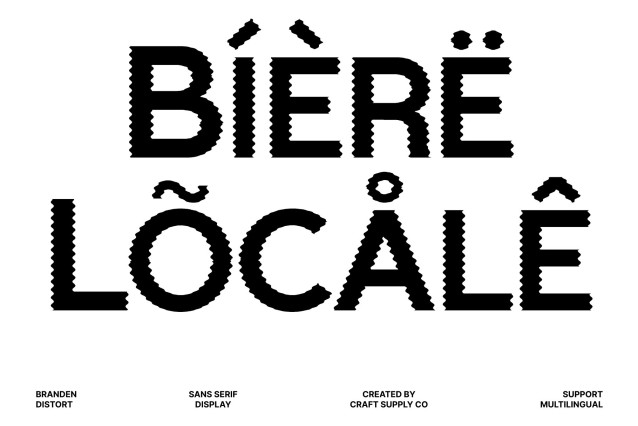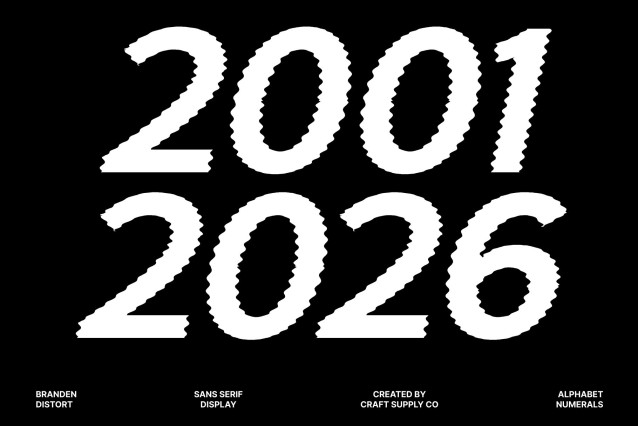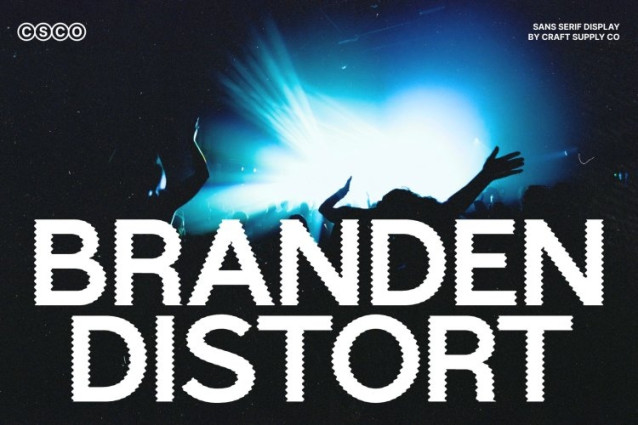
Branden Distort – Casual Sans Serif Font: Friendly Simplicity with an Experimental Melt
Casual Sans Serif with Distorted Character
This Casual Sans Serif Font reimagines a clean, business-inspired sans serif with a playful melting distortion. The original low-contrast strokes, slightly squared curves, and approachable simplicity remain at its core, while softened, fluid edges introduce a fresh and expressive personality. The result is a font that feels friendly, modern, and creatively unconventional.
Melting Details that Add Personality
The distort style gently reshapes the edges of each letter, creating a subtle liquid effect that adds movement and visual warmth. This treatment transforms the clean geometry into something more organic and artistic, making the typeface feel approachable yet distinctive.